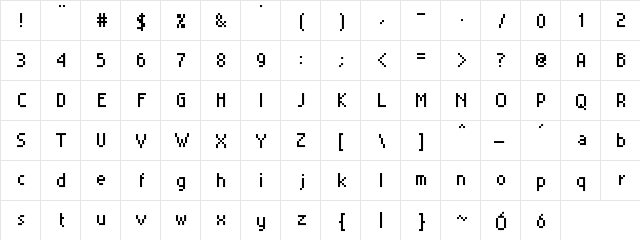
MiniSet Regular
Design Context for MiniSet Typeface
MiniSet is a composed and adaptable typeface that performs quietly and consistently across a wide range of design contexts.